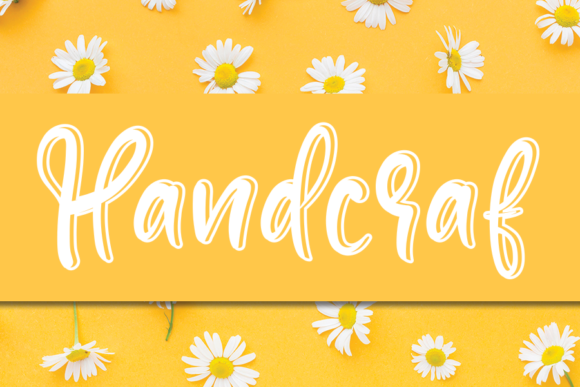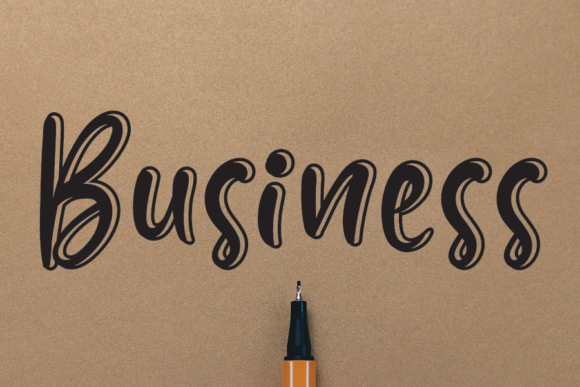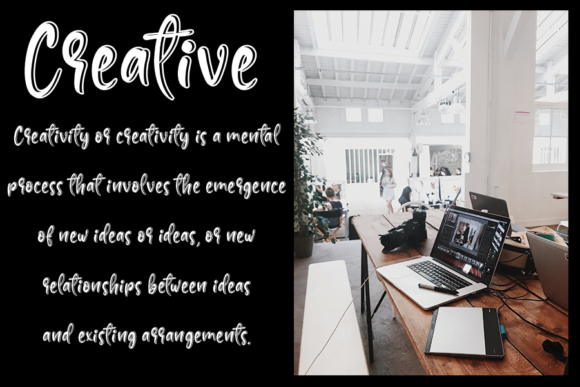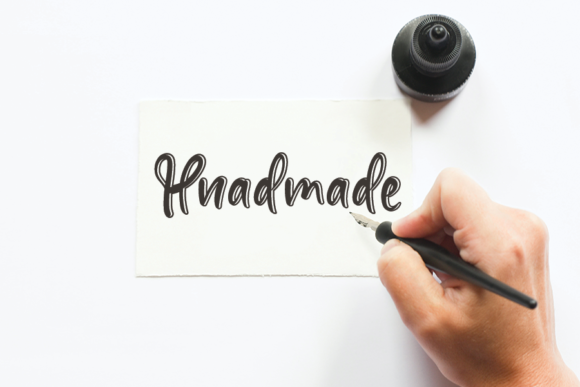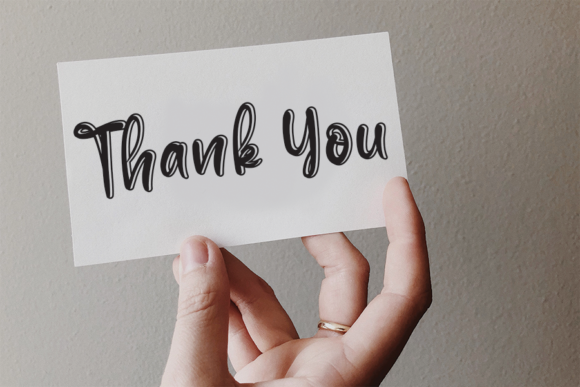
Handcraf Font
About Handcraf Font
Handcraf is a modern handwritten font. Clean and a little bit quirky, this font is the perfect fit for all of your logos, branding, social media, and crafty DIY projects.